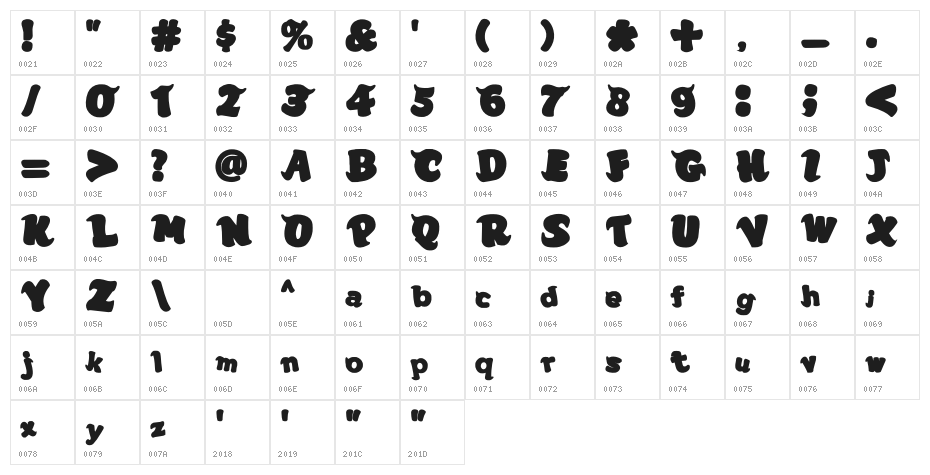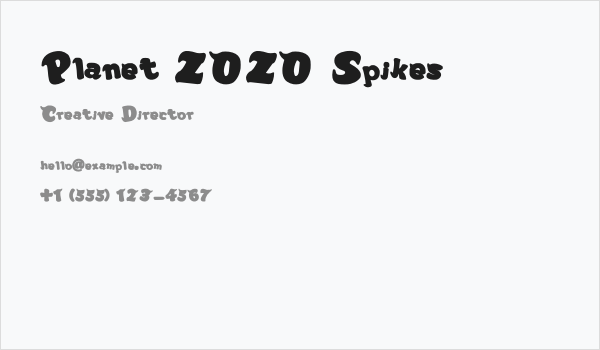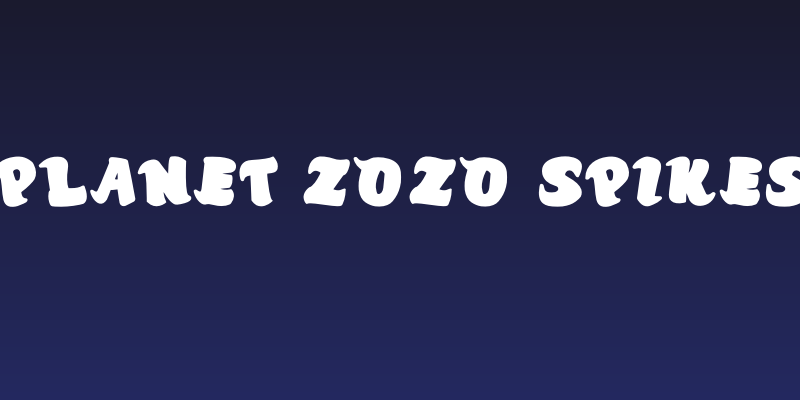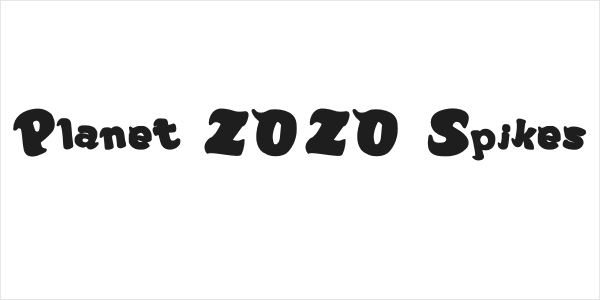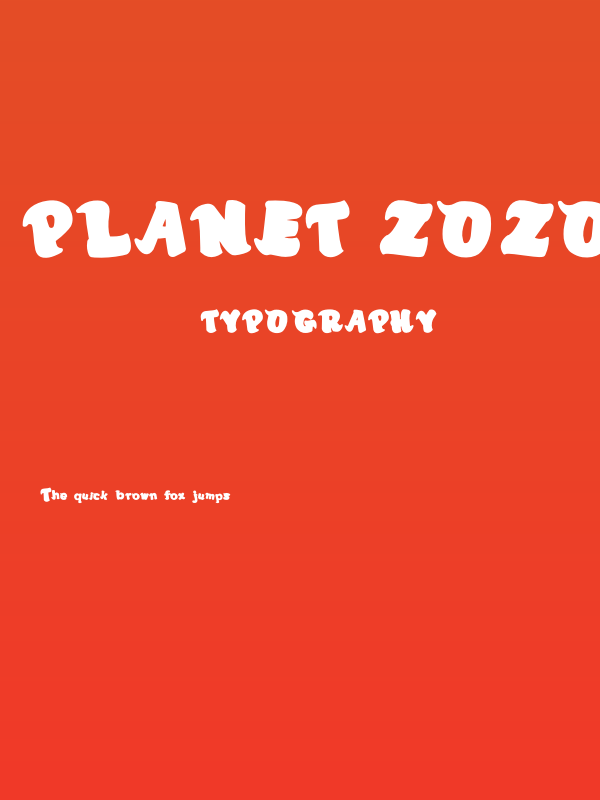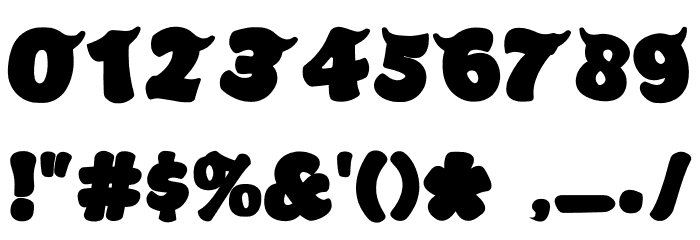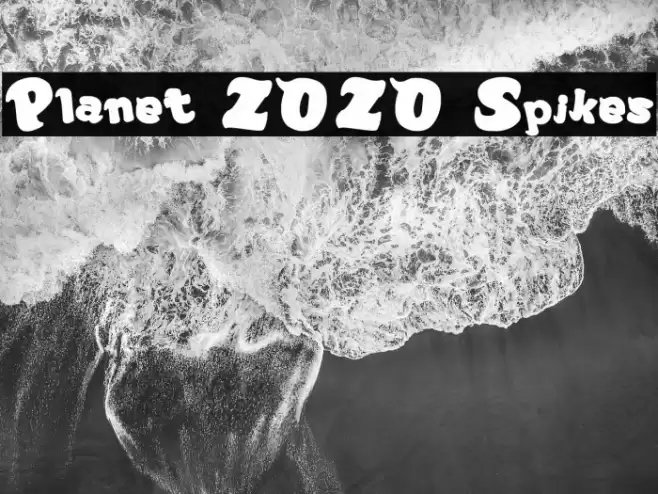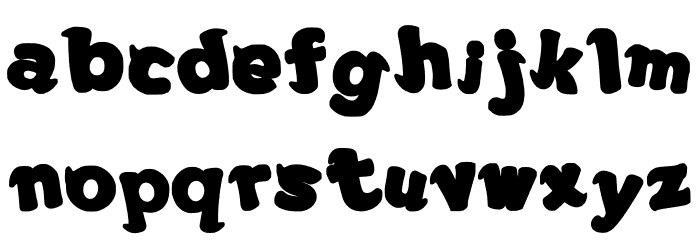
Planet ZOZO Spikes Font
Planet ZOZO Spikes Description
This font features a playful and bold design with exaggerated, rounded edges and a whimsical style. The characters are thick and have a bouncy, irregular form that gives them a lively and energetic appearance. The uppercase and lowercase letters maintain a consistent weight, creating a cohesive look across the alphabet. The numbers and special characters follow the same playful theme, making the font suitable for creative and informal applications. Its unique style is eye-catching and memorable, perfect for projects that require a fun and dynamic visual impact.
| Overall Style | Playful, Fun |
| Proposed Projects | Ideal for children's books, playful branding, party invitations, and creative posters. |